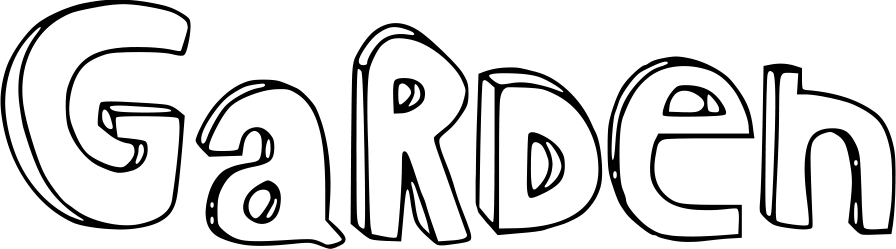
Garden Font
Capturing a vividly artistic look with its rounded blocky characters, Garden is also capable of adding a rather attention-seeking quality to your typography.
This cartoon font is an ideal fit for any modern design, either print matter like books and posters, or digital content like YouTube covers and so on. Wondering about applying a hint of its playfulness and using its high-quality design for your artwork? Go on then! Download and enjoy!